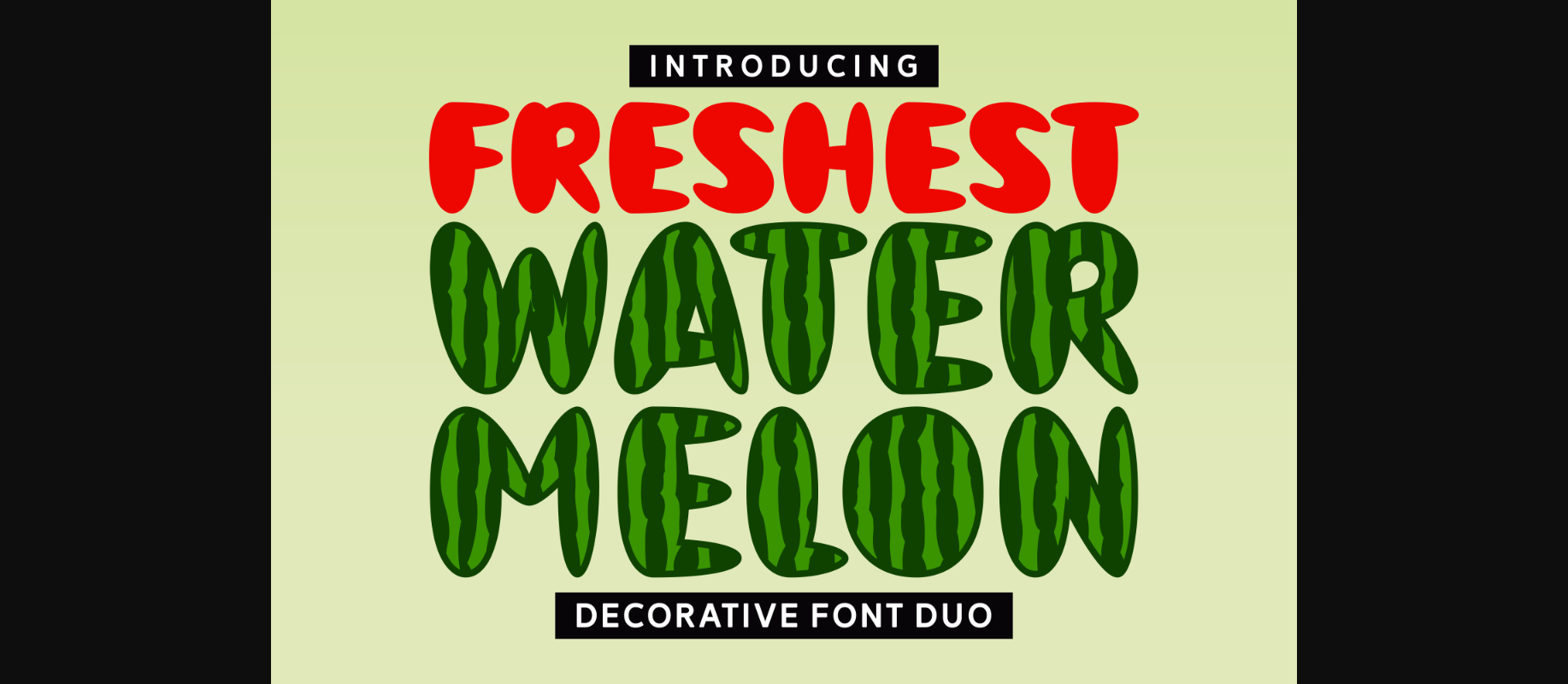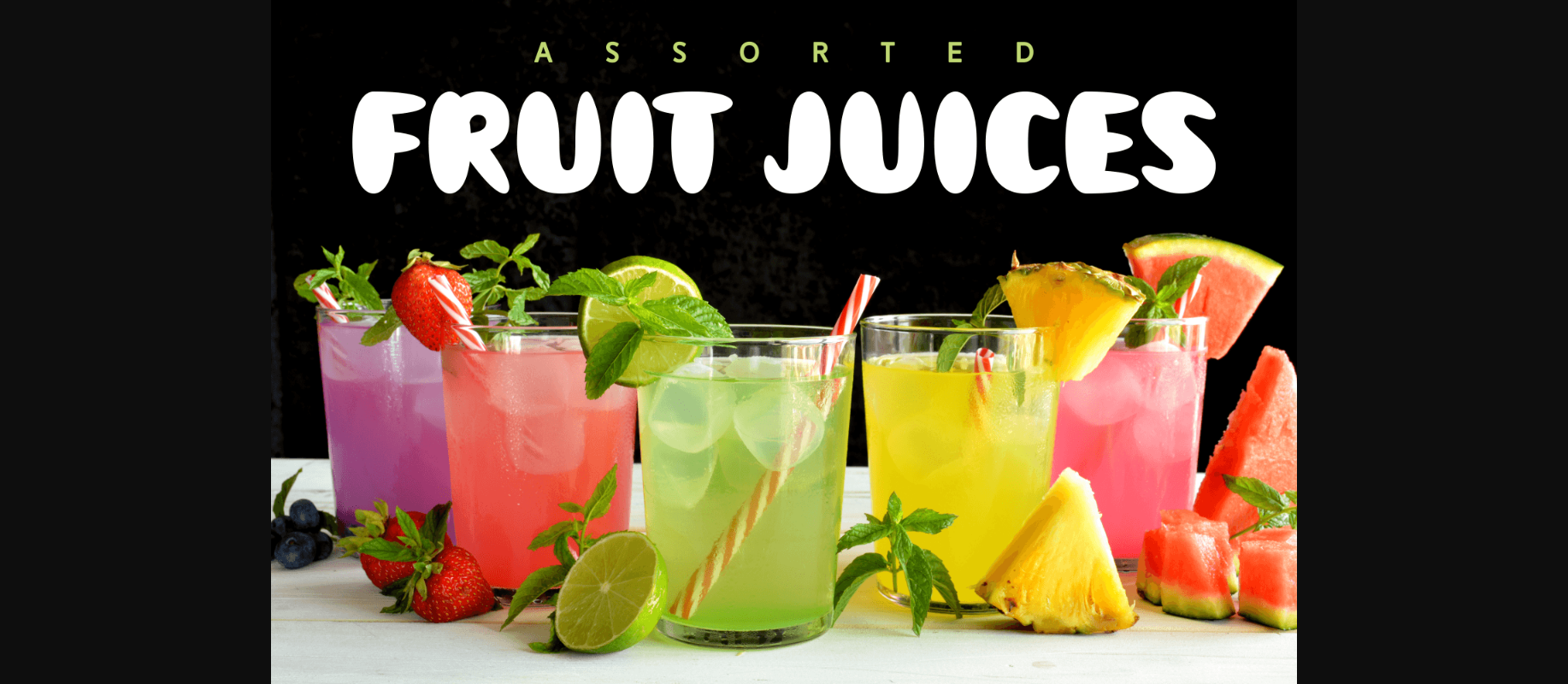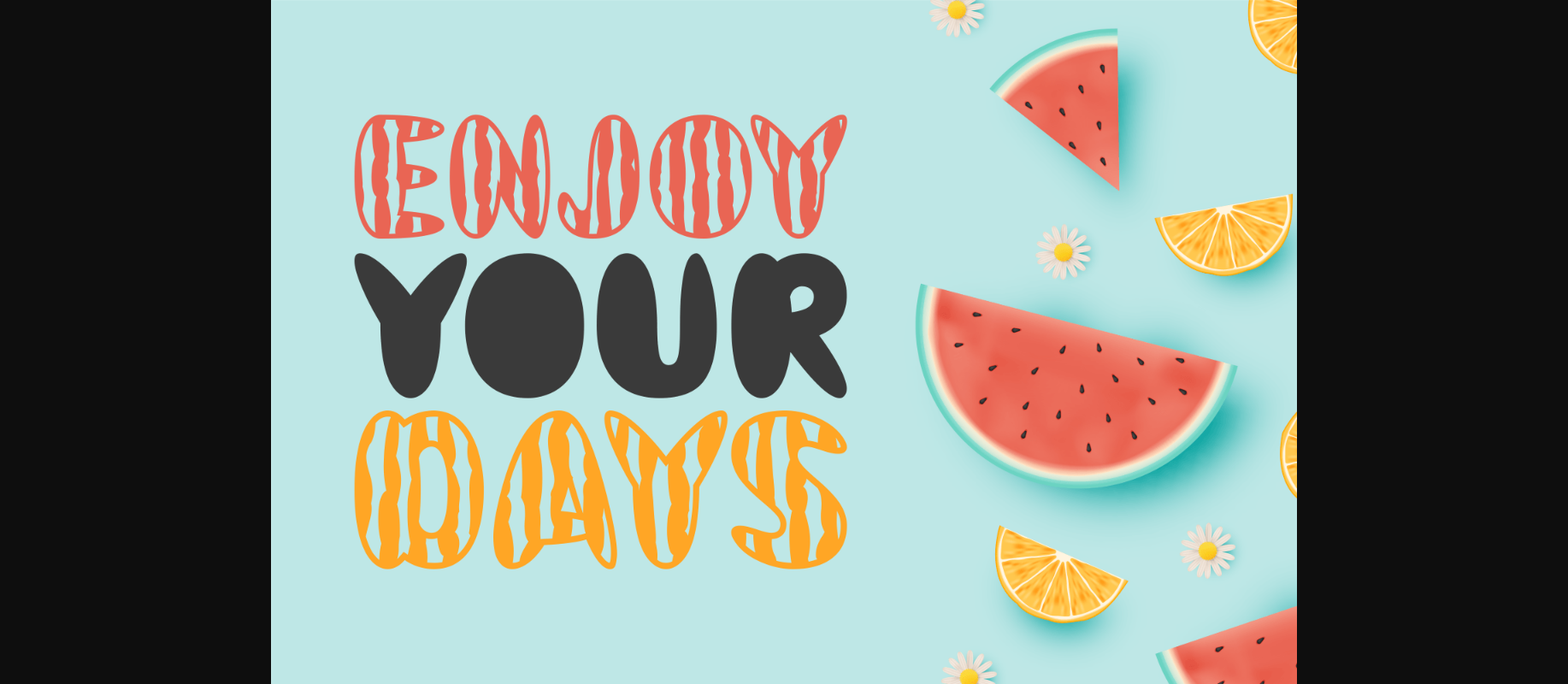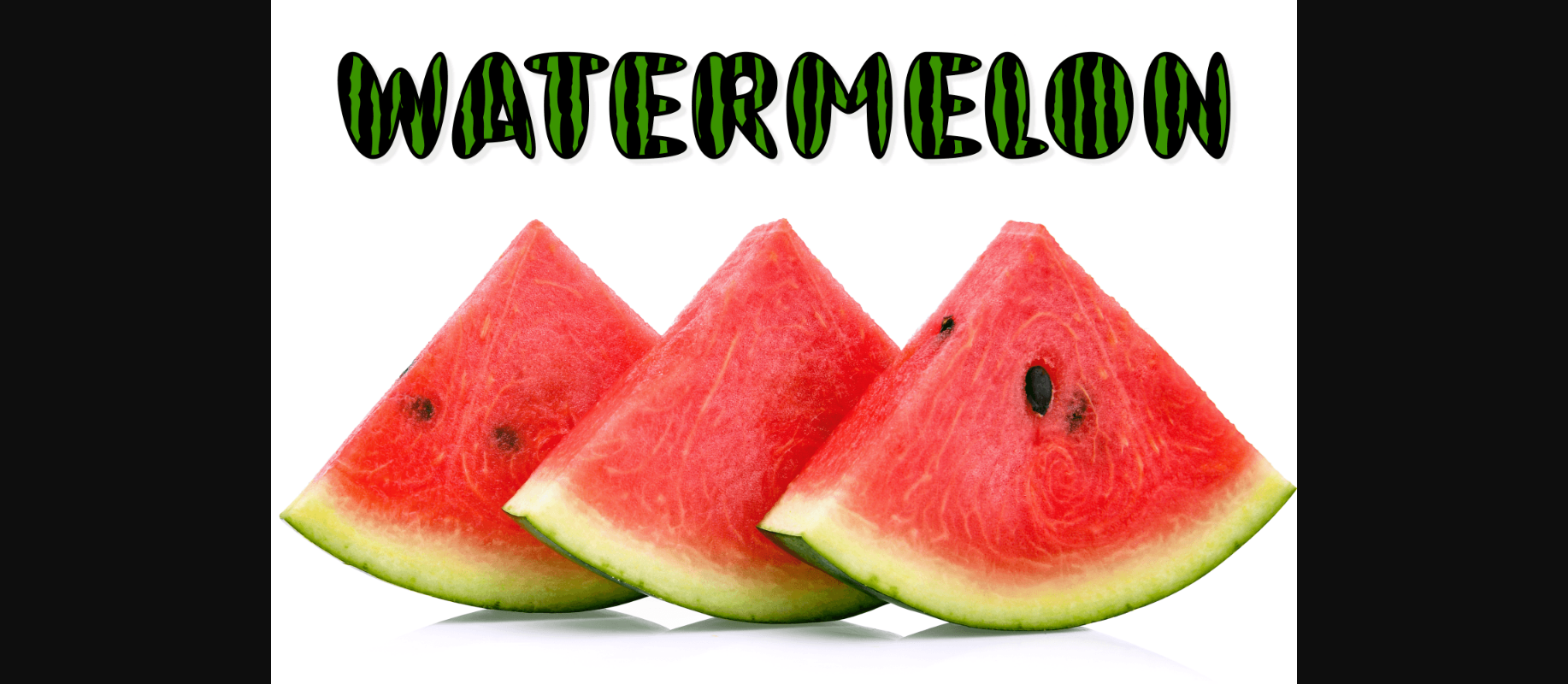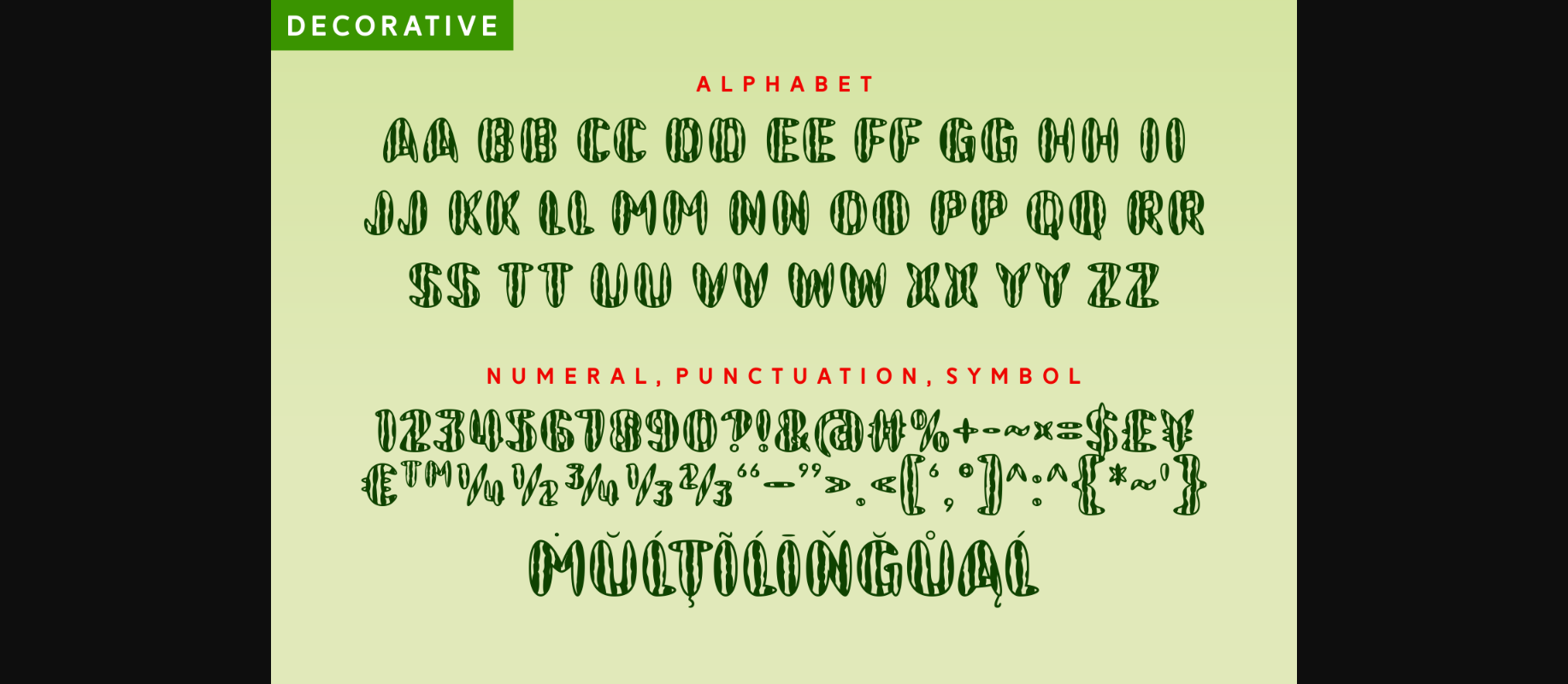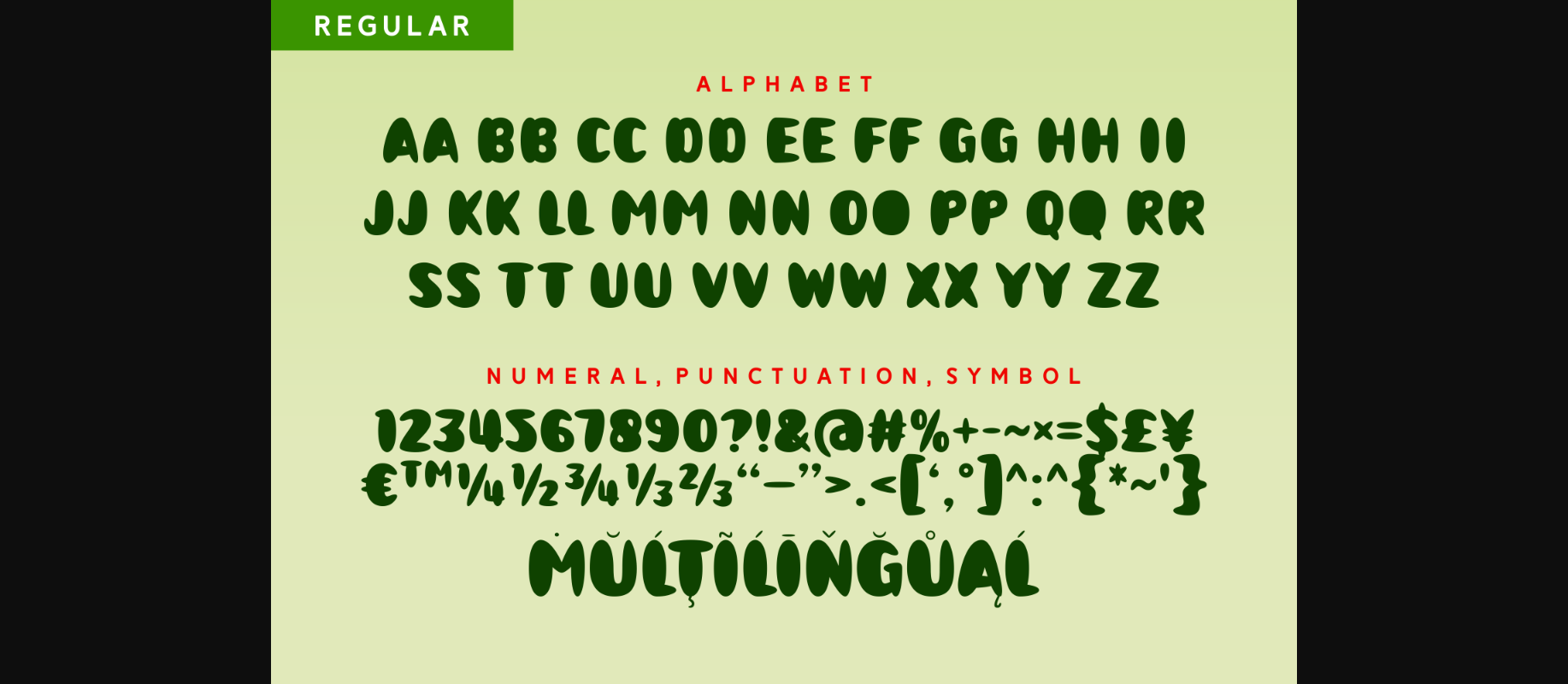
Freshest Watermelon is a joyful and charming duo font (decorative and display) suitable for your most creative projects! Try it on book covers, farm product marketing, advertisements, etc.